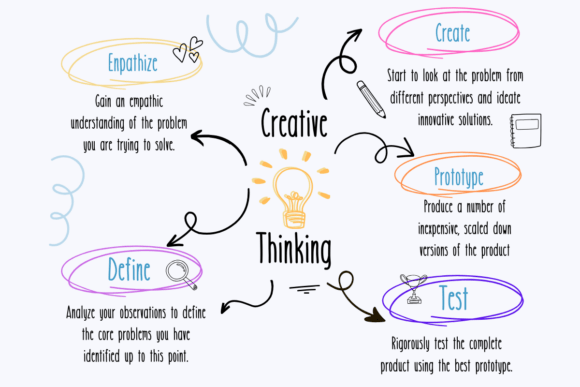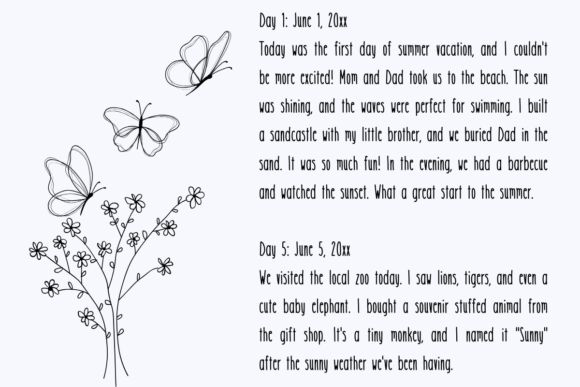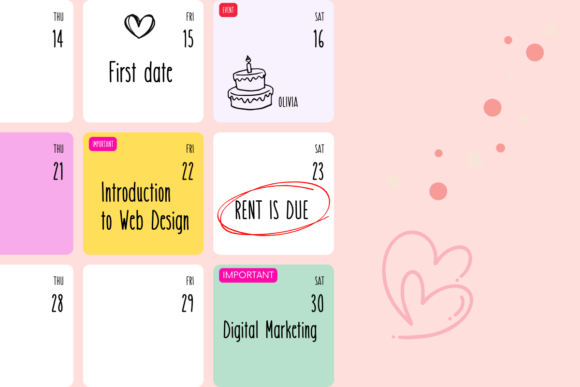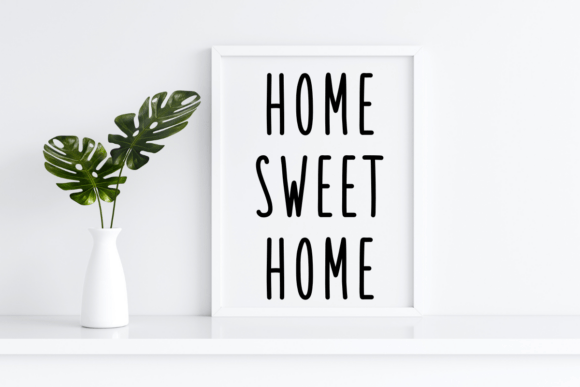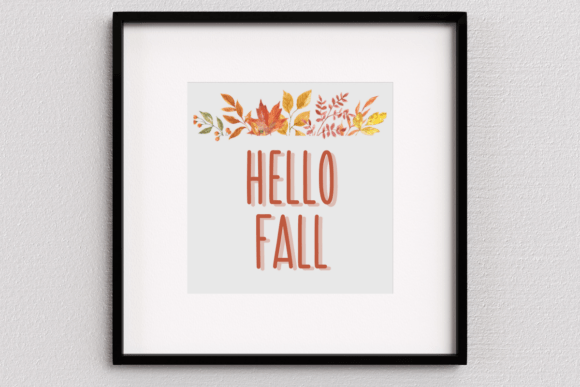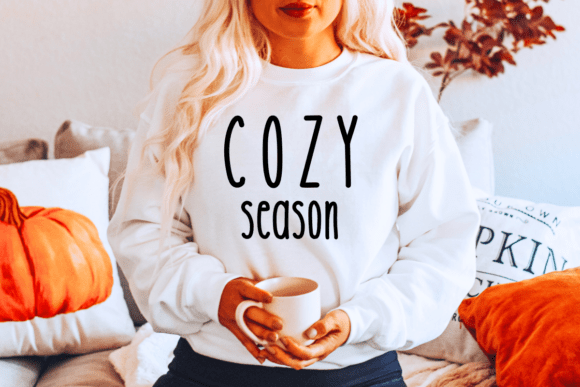
Introduction to Cheeseburger Planner Font
Have you ever been working on a creative project, staring at a blank page, and then suddenly, a burst of inspiration hits you? The perfect font pops into your mind, and you can envision the entire design unfolding before your eyes. That’s exactly what happens when you discover the Cheeseburger Planner Font – a game-changing design resource that adds a friendly touch to your projects.
As a designer, you know how crucial it is to find the right font to elevate your work. That’s why we’re excited to share with you the Cheeseburger Planner Font, a high-quality, realistic handwritten sans-serif typeface that’s perfect for planner covers, logos, greeting cards, posters, social media graphics, and printable projects. With its clean, playful, and modern look, this versatile font is a must-have in your design arsenal.
Key Features of Cheeseburger Planner Font
- High-quality design resource ideal for creative projects, including planners, journals, and organizers.
- Unique, hand-drawn design with a transparent background, allowing for seamless integration into any layout or design.
- Includes a range of characters and symbols, making it perfect for creating custom planners, journals, and other creative projects.
Honest Review: Cheeseburger Planner Font
I recently came across the Cheeseburger Planner Font, a free download that’s gained quite a following in the design community. My initial impression was that it’s a high-quality design resource perfect for creative projects.
- Casual and playful feel that’s perfect for modern designs
- Well-crafted letters that maintain a consistent style throughout
- Transparency options for a seamless integration into any background
However, as I delved deeper into the font, I noticed some limitations that might affect its overall usability.
- Not ideal for professional or corporate designs due to its casual nature
- No bold or italic font weights available
- May require additional adjustments for optimal use with transparent backgrounds
Overall, I think the Cheeseburger Planner Font is a solid addition to any designer’s toolkit. It’s free, high-quality, and perfect for creative projects that require a casual touch. While it may have its limitations, I believe it’s a valuable design resource worth exploring.
Getting the Most Out of Cheeseburger Planner Font
To get the most out of the Cheeseburger Planner Font, experiment with different font sizes, colors, and styles. Use the font’s transparent background feature to create visually appealing designs. Consider combining the font with other design resources to create a unique and creative project.
The Cheeseburger Planner Font is ideal for designing menus, posters, and social media graphics. Its high-quality design makes it suitable for various creative projects, from food-related businesses to event planning and more.